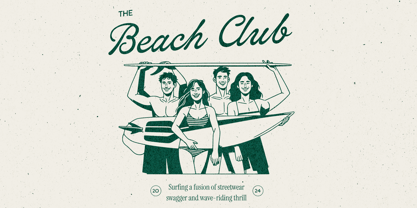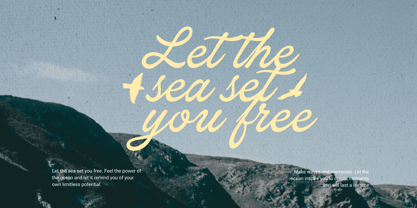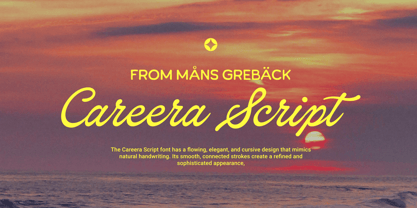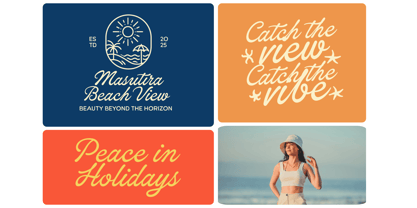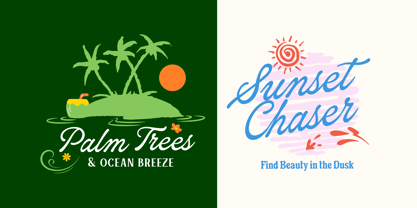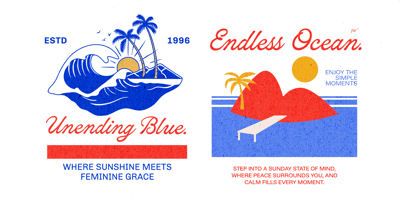
Careera Script
by Mans Greback
The Careera Script Font Family was designed by Måns Grebäck and published by Mans Greback. Careera Script contains 4 styles and family package options. More about this family
Careera Script is a bold and stylish cursive typeface that flows with confidence and purpose. Designed with the charisma of a handwritten signature, it carries the feeling of momentum, like the elegant stroke of a pen racing across paper.
Each letter in Careera Script is drawn with a blend of precision and flair—swirling, looping forms that hold an assured elegance without being overly delicate. Perfectly connected letterforms give it natural rhythm and readability, making it ideal for names, titles or any visual that needs to express distinction with warmth, suggesting a sense of personal identity.
The font is built with advanced OpenType functionality and guaranteed top-notch quality, containing stylistic and contextual alternates, ligatures and more automatic and manual features; all to give you full control and customizability.
It has extensive lingual support, covering all Latin-based languages, from North Europa to South Africa, from America to South-East Asia. It contains all characters and symbols you'll ever need, including all punctuation and numbers.
Designed and crafted by Mans Greback, a Swedish typeface designer known for expressive calligraphy and professional-quality font development.
Måns Grebäck is a type designer and font creator specializing in script typography, but with a portfolio containing a vast selection of styles. Typefaces from Måns Grebäck are used as company and product logotypes, as well as headlines and in advertisement by a wide range of industries world-wide. Founded by Måns Grebäck in 2010, Mans Greback AB originally went under the name of Mawns Fonts and later Aring Typeface AB. While the foundry has its seat Örebro, Sweden, Måns also lives in Portugal. The Premium Foundry page can be viewed Here.